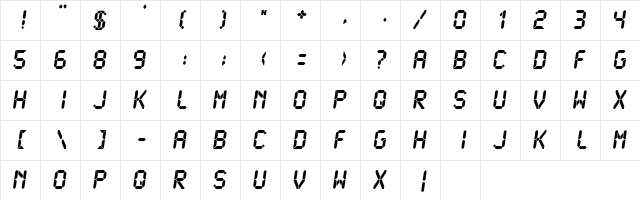
LCDMono2 Ultra
Design Context for LCDMono2 Typeface
LCDMono2 brings the precise, column-aligned rhythm of monospaced typography to designs that value technical clarity and systematic order.